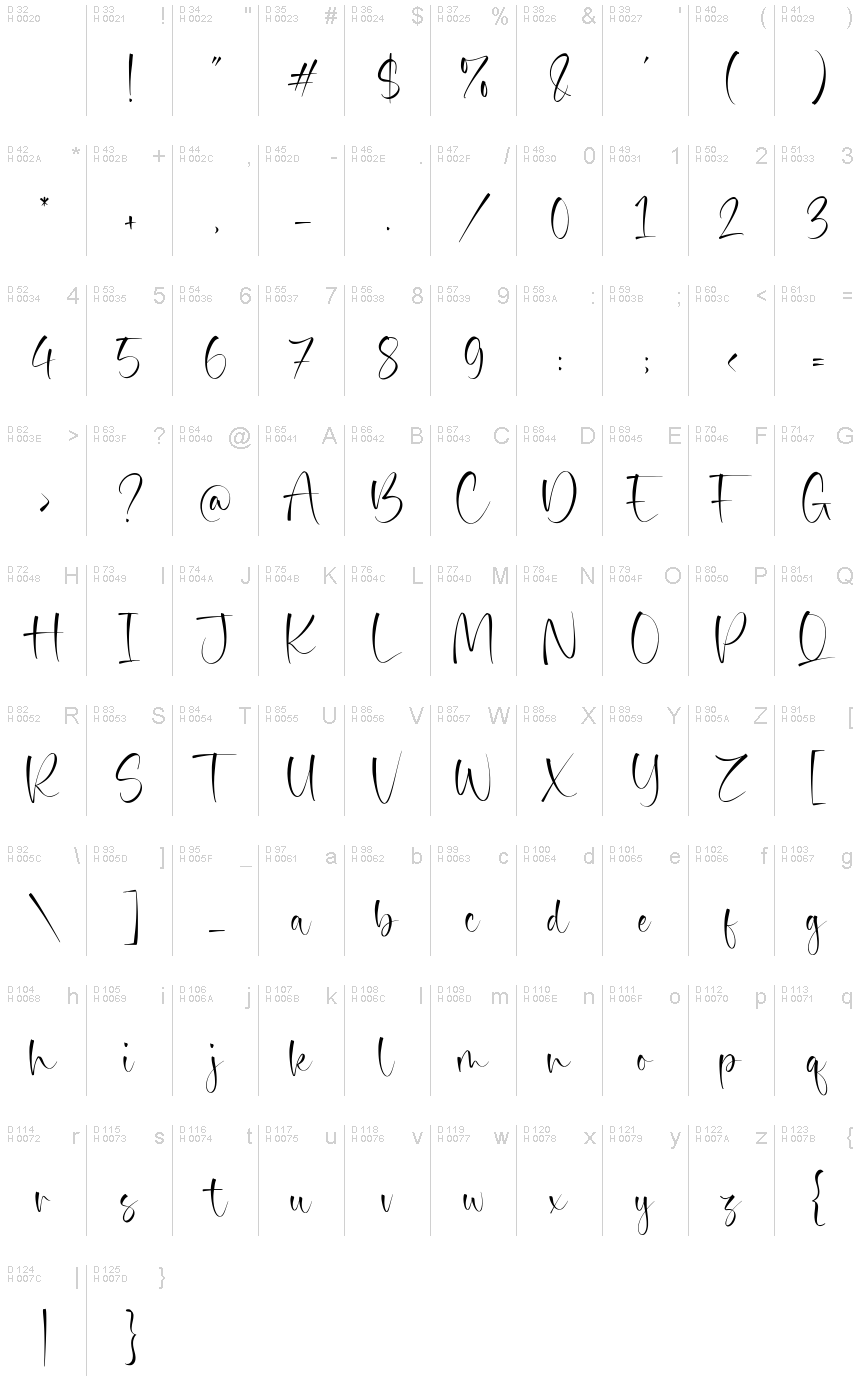
Moralist Jameson
Moralist Jameson font, designed by Timur Type, captures the essence of elegant handwriting. This light font exudes a delicate charm, combining fluidity with sophistication. Its handwritten style brings a personal touch to any project, making Moralist Jameson ideal for wedding invitations, greeting cards, and personal branding. The graceful curves and organic flow contribute to its enchanting aesthetic appeal.
Perfect for designers seeking a refined yet approachable look, this free font offers versatility across numerous design applications. Whether you're looking to download a new script font for digital art or print projects, Moralist Jameson adds an element of warmth and creativity. Embrace the artistry of this light handwritten font in your next design endeavor to captivate audiences with its timeless elegance.